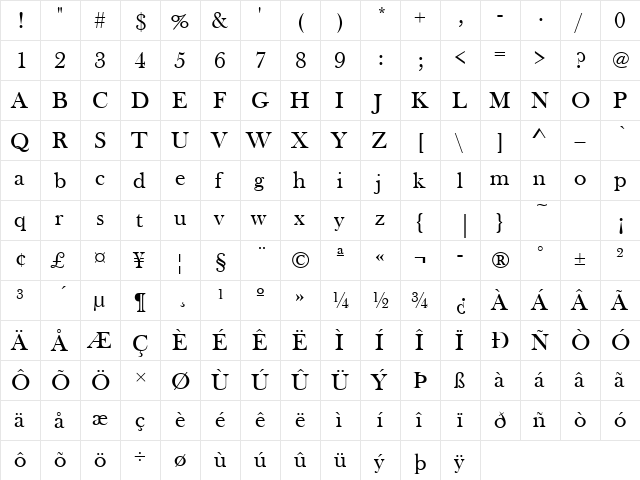
Baskerville Old Face Regular
Design Context for Baskerville Old Face Typeface
Baskerville Old Face takes a measured approach to typography — its balanced proportions and neutral character make it a reliable workhorse for both digital and print work.
Pro Tip: Use Baskerville Old Face in both headline and body roles to test its range before committing to a single application.